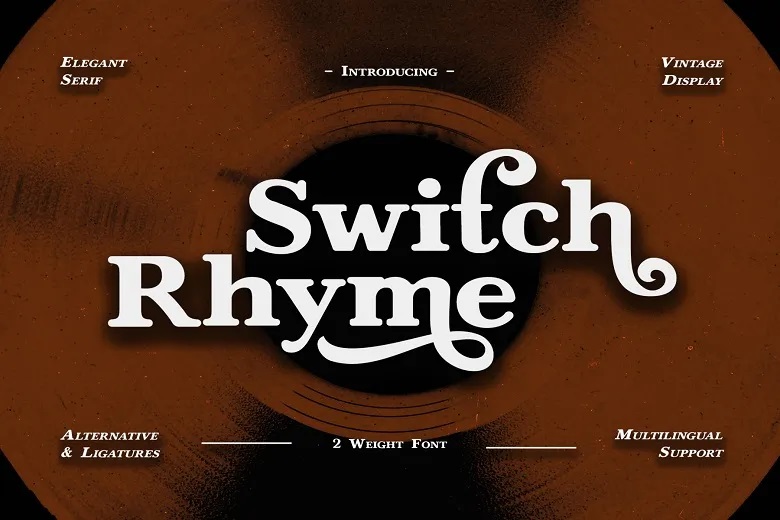
Switch Rhyme Font
Switch Rhyme is a multiline serif typeface that combines both old school and new age concepts perfectly well. The lettering is quite delicate and has graceful curves on some of its letters with distinct serifs to make the text look very classy.
The font is available in regular and italic type which increases the potential of applicability and provides a great span of variations for the usage. Whether the project is for print or for online , Switch Rhymes gives any project an old fashioned classy look.
Switch Rhyme Serif Font